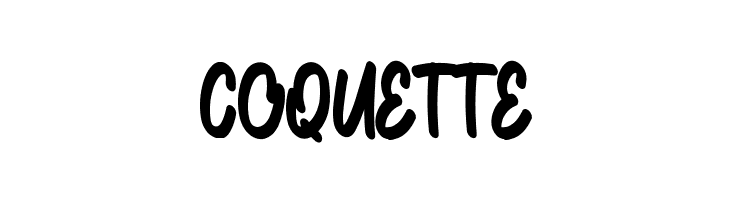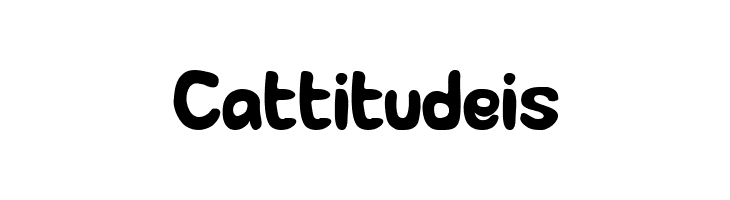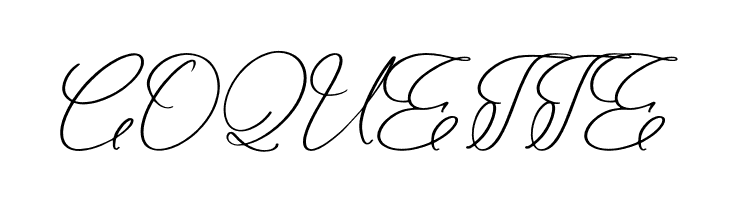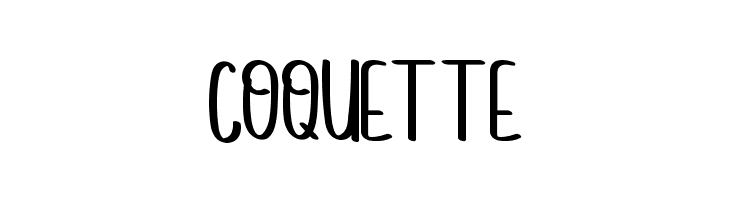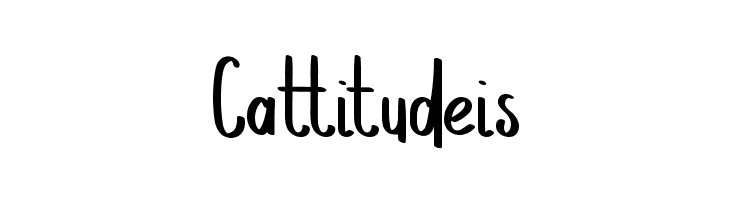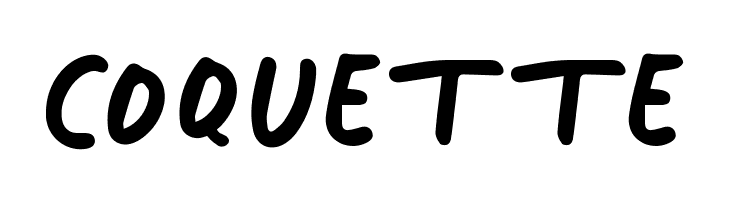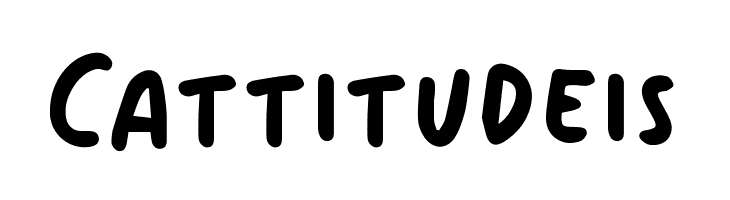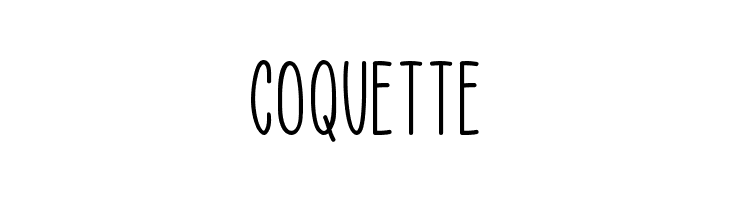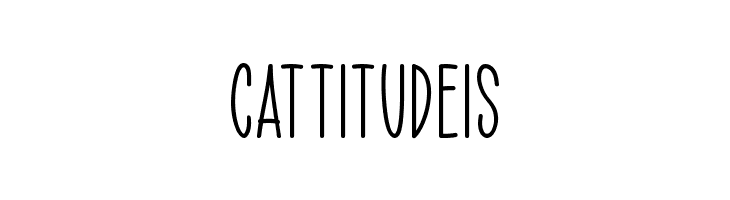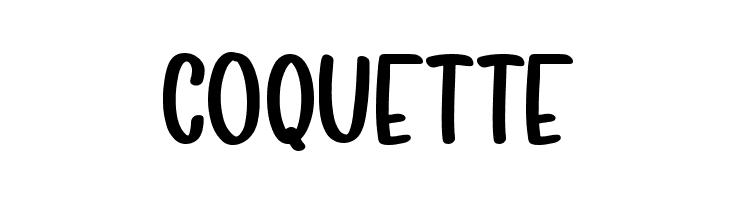
( Fonts by olivetype )
Playful, bold handwritten font.
( Fonts by PremiereGraphics )
A bold, hand-drawn font with a playful and energetic style.
( Fonts by PiPi Creative )
Playful handwritten script with bold, rounded strokes and whimsical curves.
( Fonts by Excellent Ritma Florendia )
A playful, bold handwritten font with rounded, consistent strokes.
( Fonts by Fauzan S.Kom )
A playful, bold, and rounded font with smooth curves.
A bold, playful handwritten font with rounded strokes and a casual, dynamic style.
( Fonts by Stefie Justprince )
A bold, playful handwritten font with rounded edges and thick strokes.
( Fonts by Md Shohail Bhuian )
Playful handwritten-style font.
( Fonts by Dm Letter Studio )
Playful and bold handwritten font.
( Fonts by Johan Wibisono )
A playful, hand-drawn font with tall, narrow letters and a whimsical style.
( Fonts by Maulana Creative )
Playful handwritten font with tall, narrow letters.
( Fonts by Andika )
Minimalist handwritten font with a casual style.
( Fonts by The Branded Quotes )
A bold, hand-painted style font with thick, uneven strokes and a playful, dynamic feel.
( Fonts by Origin Type )
Casual, rounded handwritten font with a friendly, informal style.
An elegant script font with flowing, interconnected letters and decorative flourishes.
( Fonts by Md Shohail Bhuian )
Tall, narrow handwritten font.
( Fonts by Cannot Into Space Fonts )
A bold, playful handwritten font with thick, rounded strokes.
( Fonts by Cannot Into Space Fonts )
A bold, oblique handwritten font with a dynamic and playful style.
( Fonts by Cannot Into Space Fonts )
A bold, playful handwritten font with rounded, irregular characters.
( Fonts by Cannot Into Space Fonts )
A bold, oblique, and handwritten-style font with a dynamic and energetic appearance.
( Fonts by Cannot Into Space Fonts )
A playful, handwritten font with thin, hairline strokes and a casual, informal style.
( Fonts by Cannot Into Space Fonts )
A delicate, hand-drawn oblique font with a casual yet sophisticated style.
( Fonts by Cannot Into Space Fonts )
A playful, handwritten font with a casual and organic style.
( Fonts by Cannot Into Space Fonts )
A casual, handwritten font with an oblique slant and consistent stroke width.
( Fonts by Scratchones )
Thin, whimsical handwritten script with tall, airy letterforms.
( Fonts by Hector Suriel )
A bold, handwritten font with dynamic, slanted characters.